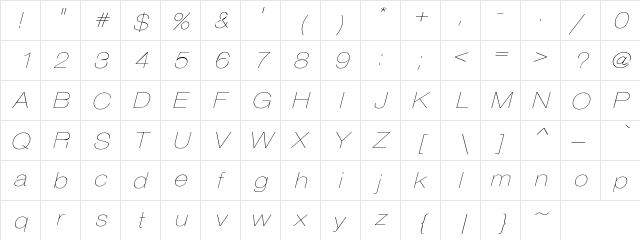
Bern Expanded Oblique Thin Regular Font Preview
Design Context for Bern Expanded Oblique Thin Typeface
Bern Expanded Oblique Thin offers clean, dependable letterforms without strong stylistic allegiance, making it a practical choice for designers who need flexibility. Its italic angle brings a sense of urgency and motion to the letterforms. The delicate stroke weight brings airiness and refinement to layouts.
Pro Tip: Try Bern Expanded Oblique Thin for annotation and caption copy alongside an upright companion — the contrast in angle creates a dynamic but ordered typographic system.